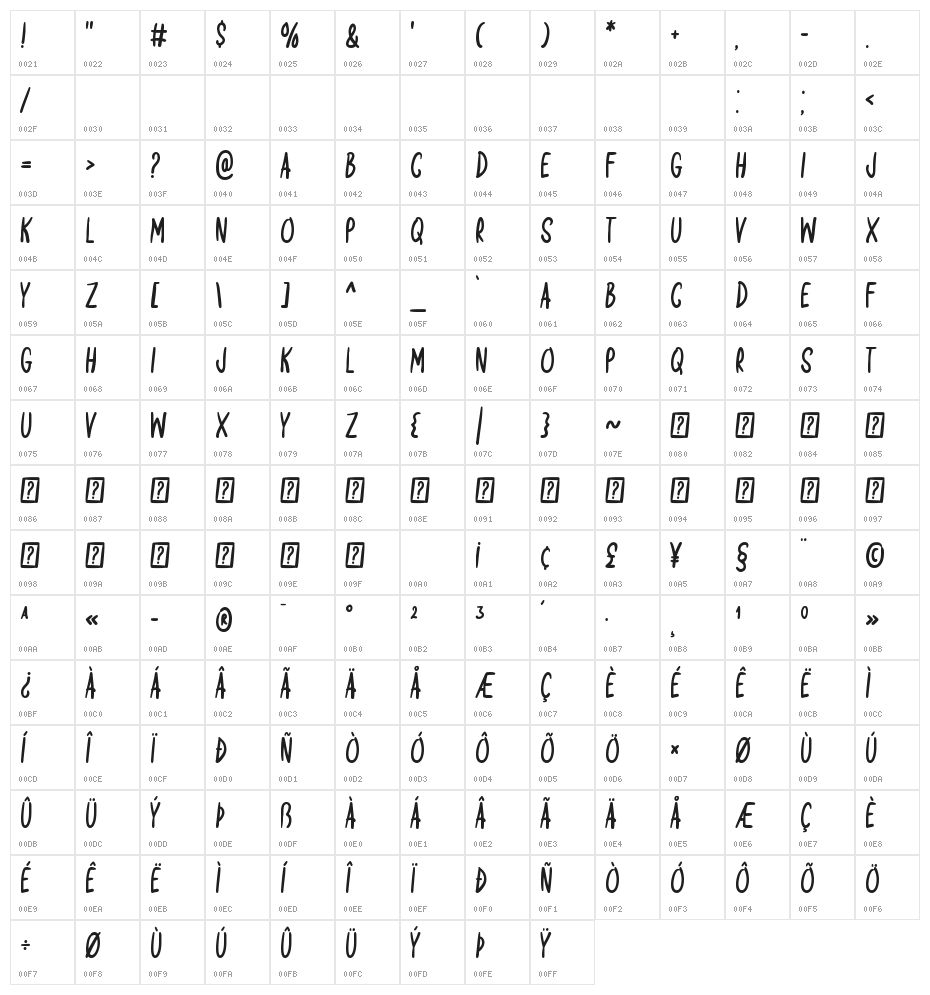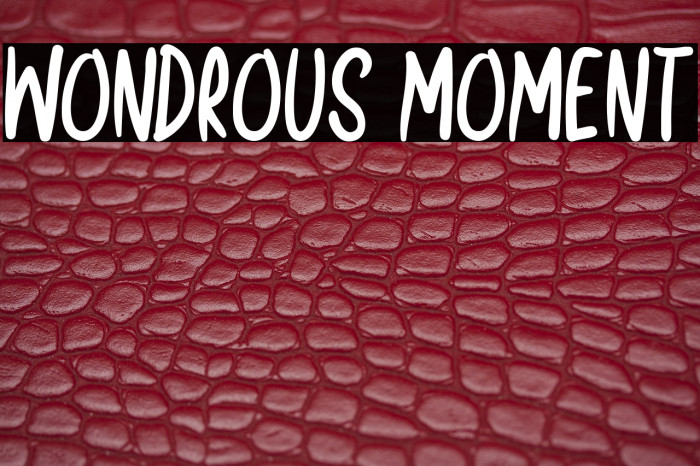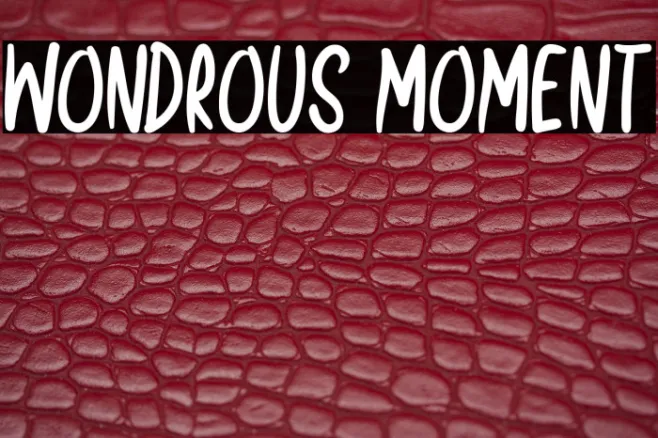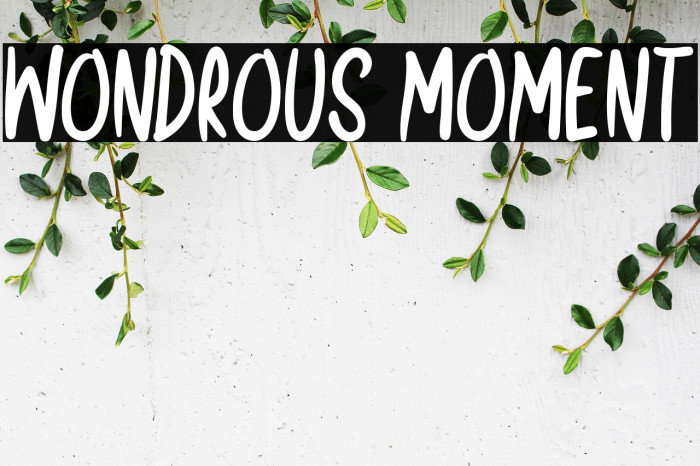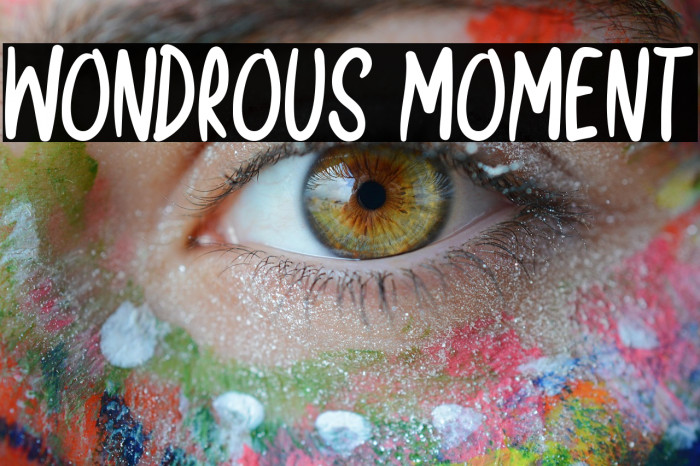
Wondrous Moment Font
A playful, handwritten font with a casual and friendly appearance, featuring slightly irregular strokes and rounded edges.
| Overall Style | Casual |
| Use Case | Headlines, Informal text |
| Proposed Projects | Greeting cards, children's books, informal invitations. |